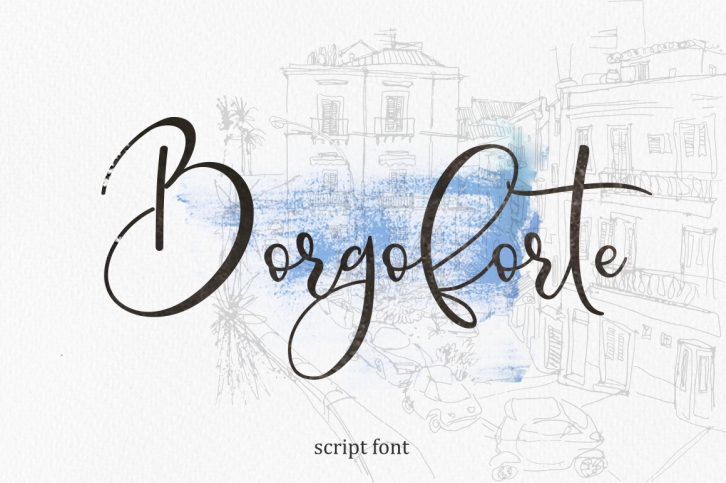
Borgoforte script font Download
Borgoforte script is a great font that was designed by CallMeStasya. Imagine the amount of combinations you can create using this font! The archive is 17.32 MB and it was released on July 3, 2018. Borgoforte script looks beautiful on wedding invitations, greeting cards, logos, posters, labels, t-shirt designs, logos, business cards and is perfect for use in ink or watercolor works, fashion, magazines, packaging and food menus, children's books and more!